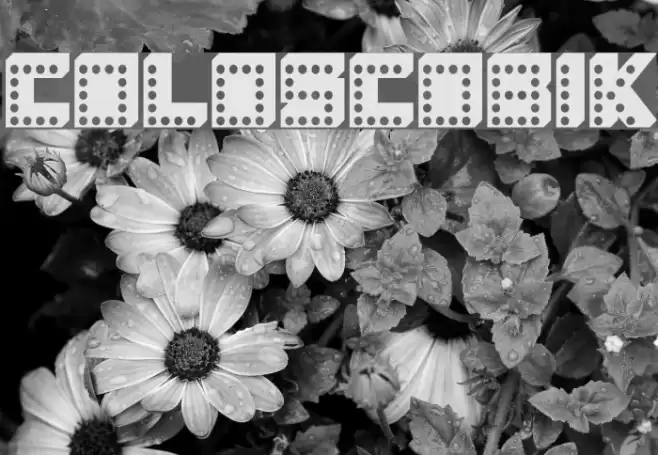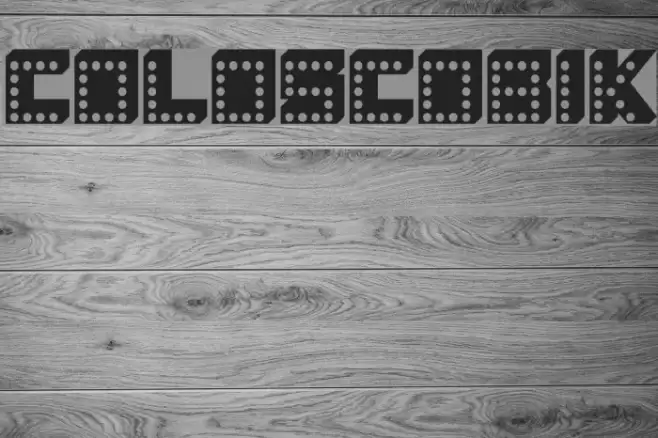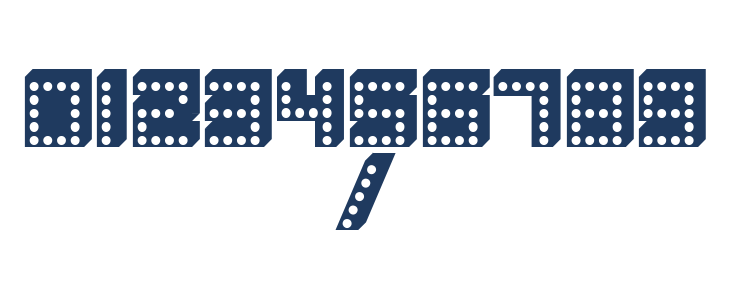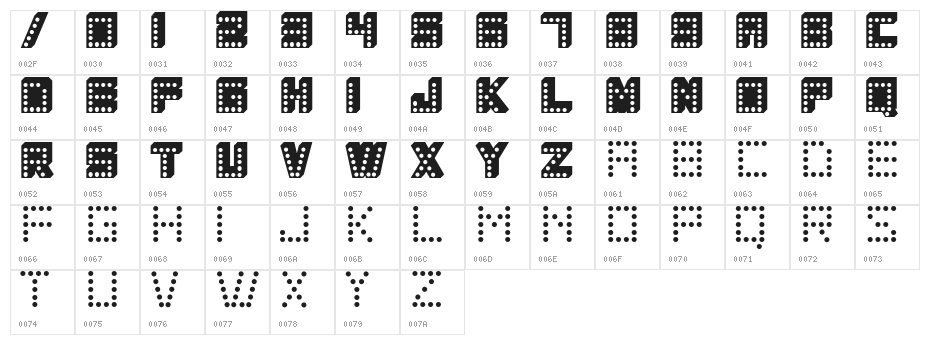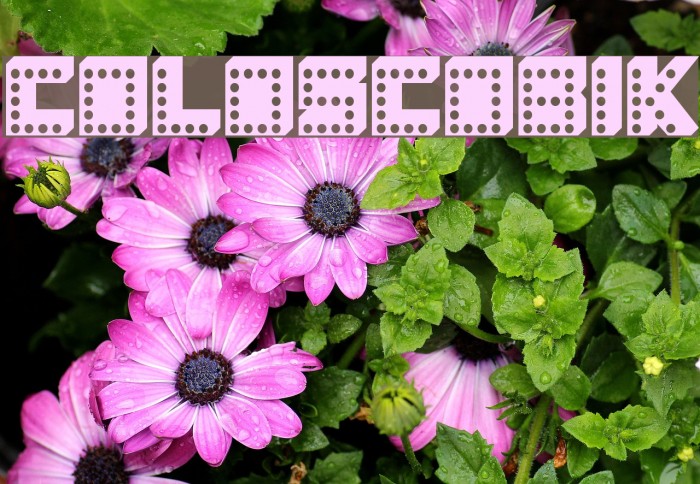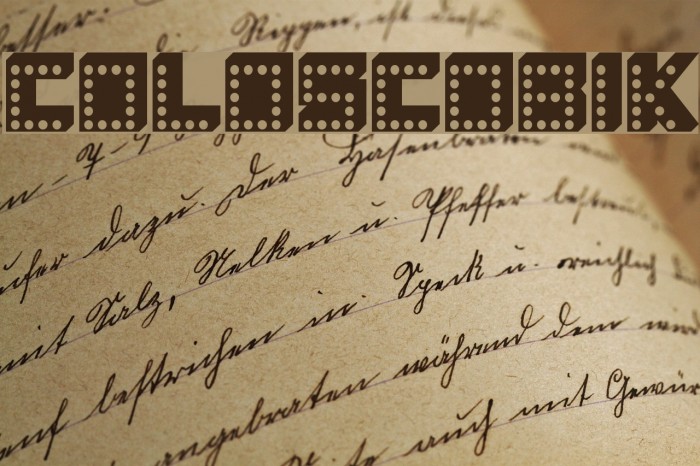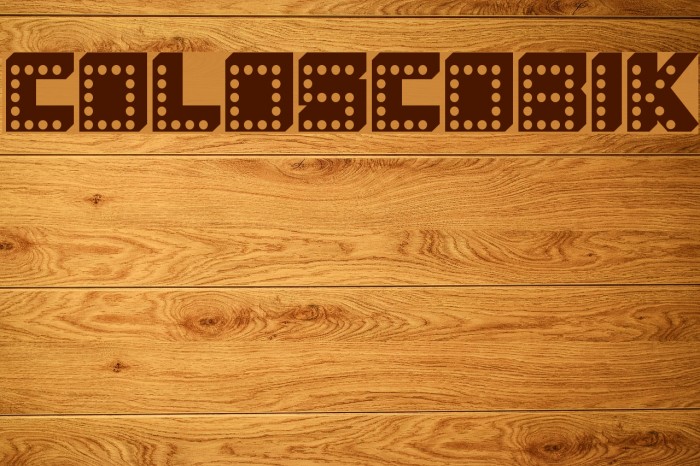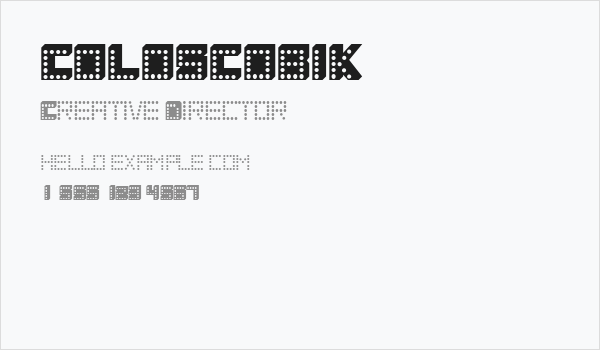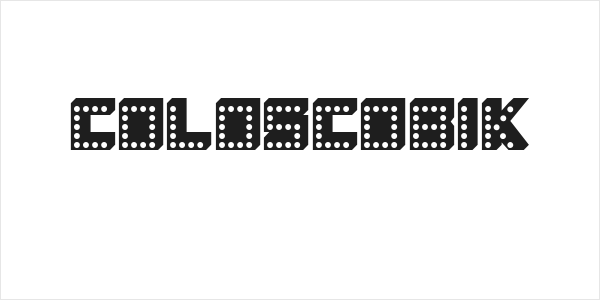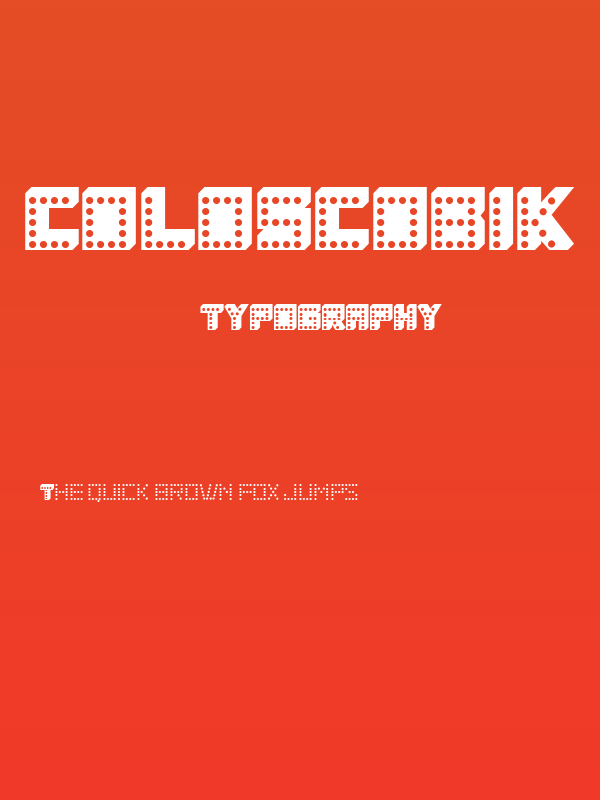
COLOSCOBIK Font
COLOSCOBIK Description
This font features a unique design with characters composed of small, evenly spaced dots, creating a bold and eye-catching appearance. The uppercase letters have a solid, blocky structure filled with dots, while the lowercase letters and numbers maintain a consistent dotted pattern. The style is reminiscent of digital displays or marquee lights, offering a modern yet retro aesthetic. The characters are evenly spaced, providing a balanced and uniform look across all text. This font is ideal for projects that require a distinctive and playful touch, such as posters, signage, or digital interfaces.
A bold, dotted font with a digital display aesthetic from Fancy fonts.
- Proposed Projects: Ideal for digital displays, retro-themed posters, signage, and playful branding.
- Use Case: Headlines, Logos, Signage